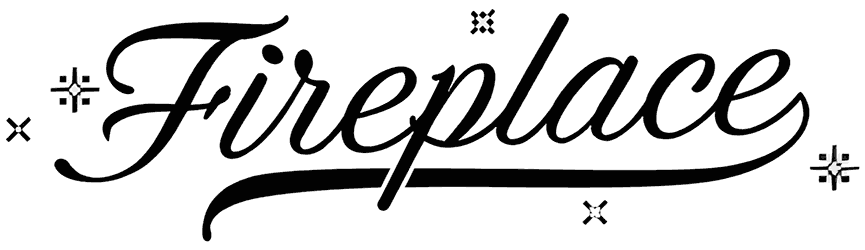
Fireplace Font
Give your design a lovely and classic vibe with calligraphic writs and tiny snowflakes around them. As a calligraphy font, Fireplace can give a vintage and symphonious mood and a twisted face to projects. Place Fireplace on your creative winter-themed designs such as posters, postcards, apparel, and sundries, and take them to the mood of late December.
Use + * ( ) × to create snowflakes, sparkles and stars. Use [ ] < > after any word to create a swash. Example: Snow]
For a longer swash, use several characters: Decorative>>>>